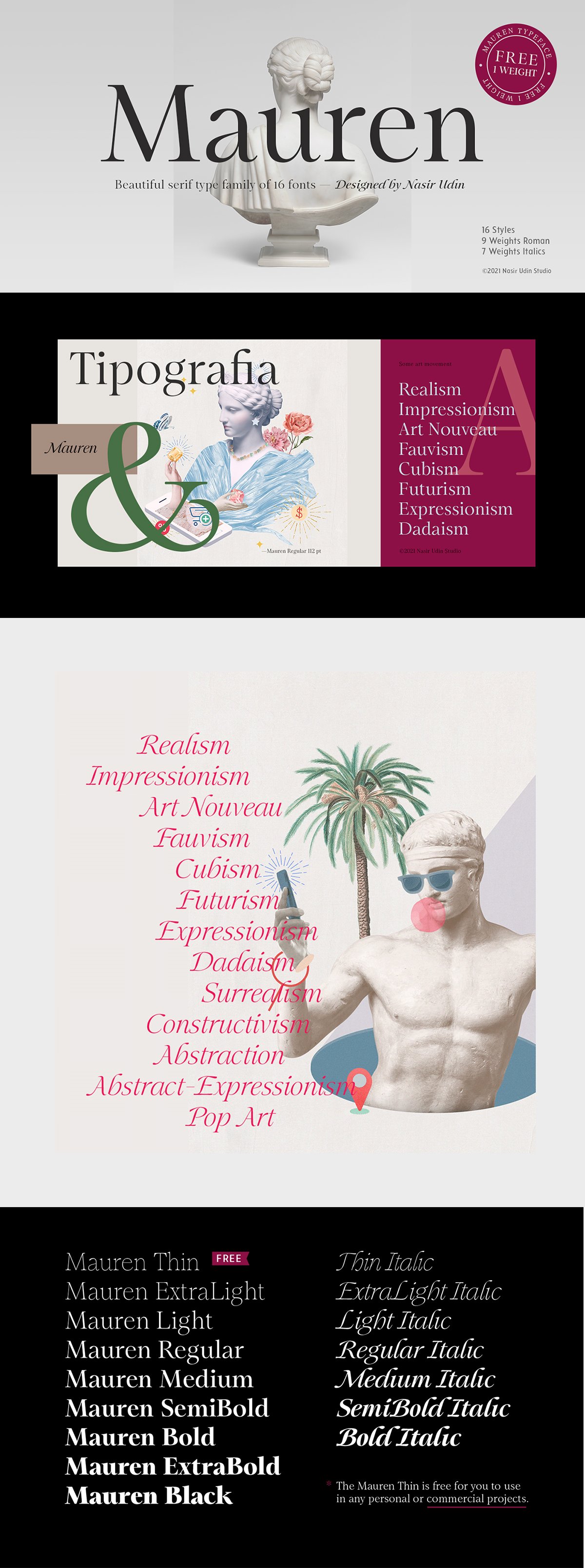
Mauren Typeface Free Demo is the part of a serif typeface family. The font takes inspiration from the beauty of classic serif and calligraphic style. Also, fused with modern appeal to blend with modern needs.